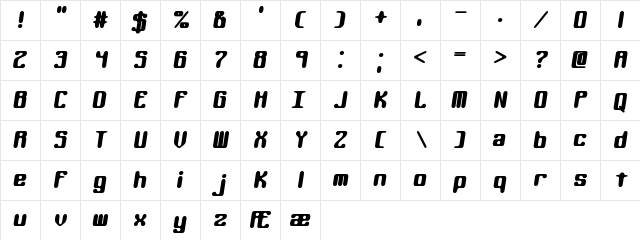
Kaliber Round BRK Regular
Design Context for Kaliber Round BRK Typeface
Kaliber Round BRK uses gentle rounded endings to create a warm, inviting typographic personality — less corporate than geometric sans, more refined than playful display fonts.
Well-suited to UI design, mobile interfaces, and any brand that wants approachability without sacrificing clarity.
Font Pairing: Pairs well with a rounded or humanist sans for body copy, maintaining the friendly tone without relying on Kaliber Round BRK to carry extended reading.
Pro Tip: Use Kaliber Round BRK for UI elements, app interfaces, and anywhere a friendly, approachable tone needs to be maintained without sacrificing clarity.